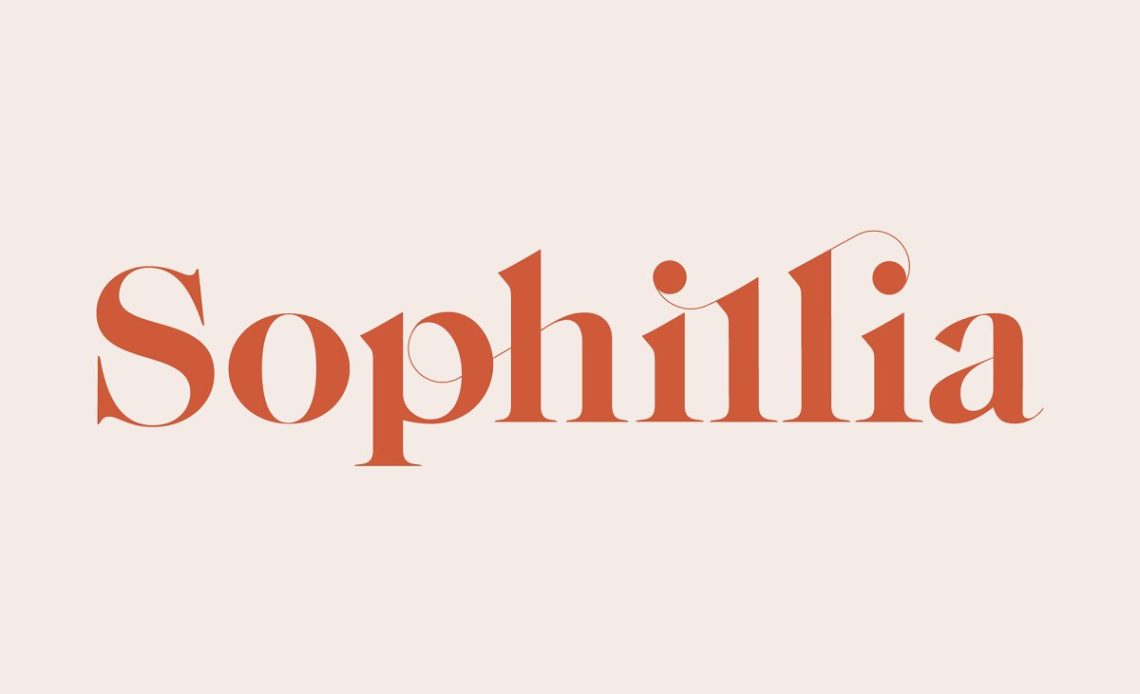
Make your wedding invitations unforgettable with the unique and stylish Sophillia ligature serif font from New Tropical Design Studio. This font family has been created specifically with weddings in mind and is sure to add that extra touch of elegance to your special day.
The high contrast serif of Sophillia makes it stand out, making it perfect for those big bold headings that you want to draw attention to. Its modern take on a classic Caslon style typeface is what sets it apart from other fonts. This means that it's not only perfect for wedding invitations but also for any other special occasions where you want to add a touch of sophistication.
With hundreds of characters and ligatures, this font offers endless possibilities for your designs. It also includes all those European letters, making it a versatile font for any language. Additionally, Sophillia pairs perfectly with a light scripts font or minimal sans serif, giving you even more options to create your perfect design.
In conclusion, Sophillia is the perfect font for wedding invitations and any other special occasion where you want to add elegance and sophistication to your designs. Don't settle for ordinary fonts, choose Sophillia and make your designs unforgettable!